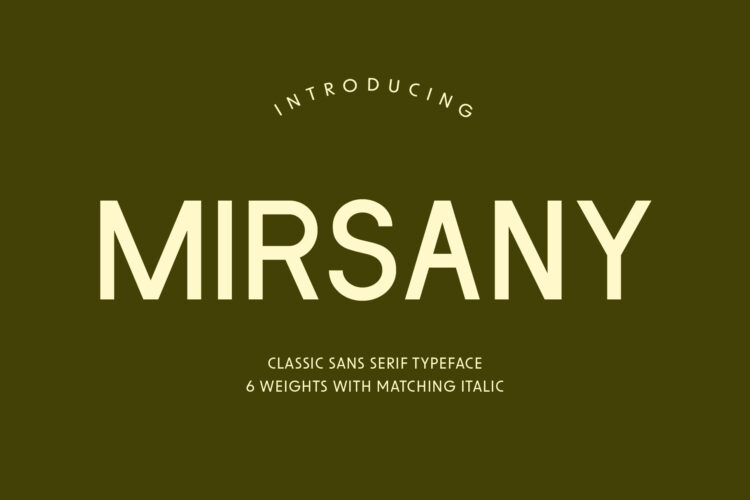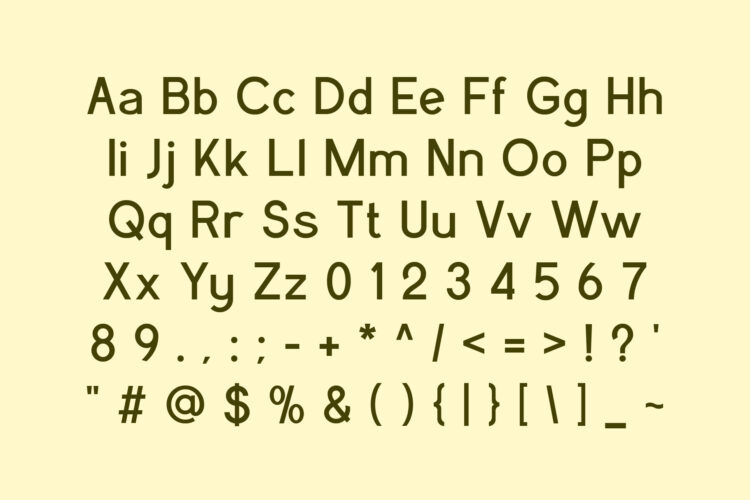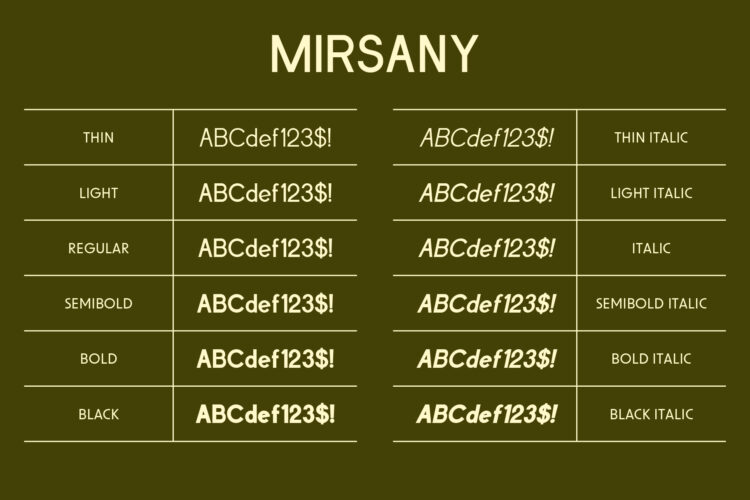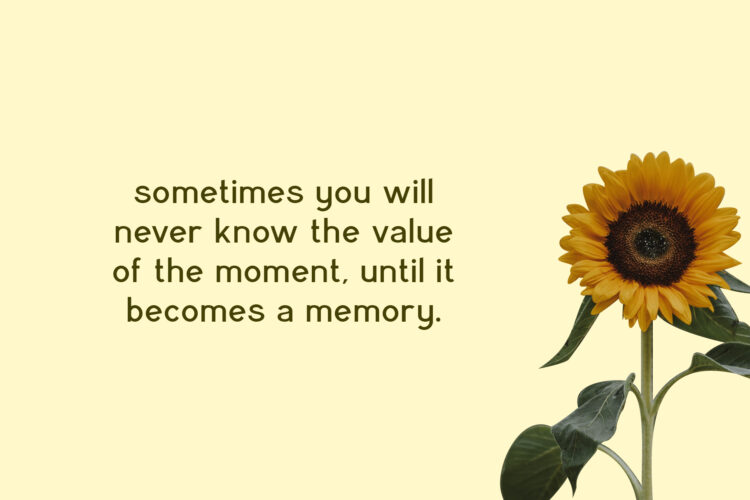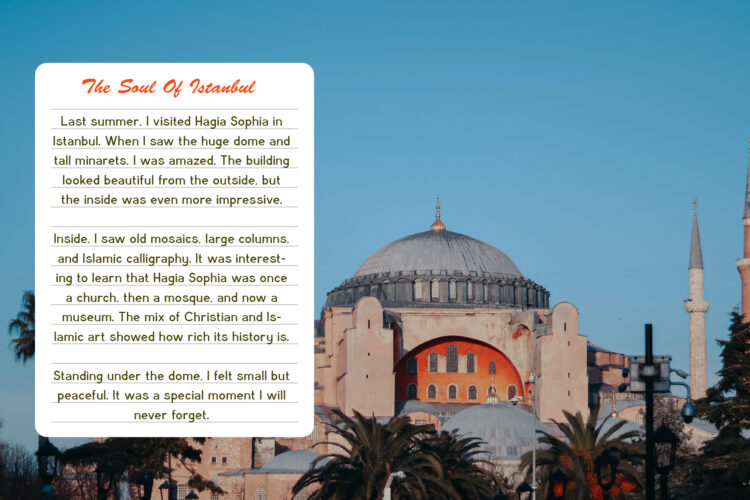
Introducing Mirsany, a modern sans serif font family designed for readability and versatility. Available in multiple weights and accompanied by an italic style, Mirsany is perfect for both headings and body text. Whether you’re creating posters, quotes, blogs, or other projects, Mirsany provides a clean and professional look. This font family includes uppercase and lowercase letters, numbers, and basic punctuation, all with an italic style for added flexibility.
Mirsany – Sans Serif Font